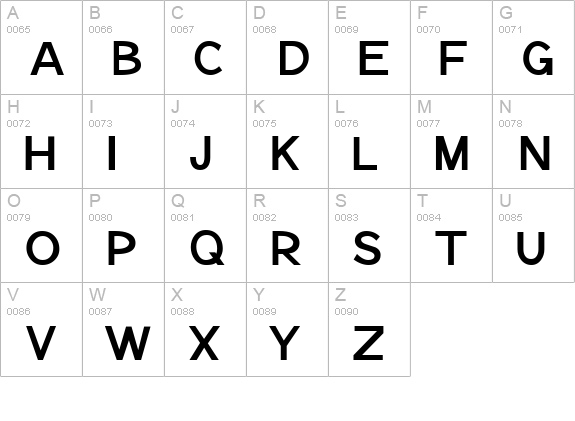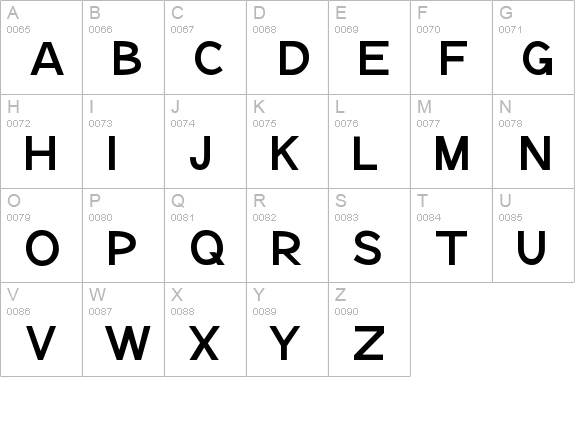
Notation JL Font Details
Notation JL font is a stunning display typeface that exudes elegance and sophistication. Its sleek and modern design makes it perfect for a wide range of design projects, from branding to editorial design. With its clean lines and stylish curves, Notation JL font adds a touch of sophistication to any project. What sets Notation JL font apart is not only its impeccable design but also the fact that it is available for free download at FontsMarket.com. This means that you can easily access this beautiful font and use it in your projects without any hassle. Whether you are working on a logo, website design, or any other project that requires a touch of class, Notation JL font is sure to elevate your design to the next level. Don't miss out on the opportunity to enhance your projects with the sleek and stylish Notation JL font, available for free download at FontsMarket.com. Download it today and add a touch of sophistication to your designs!